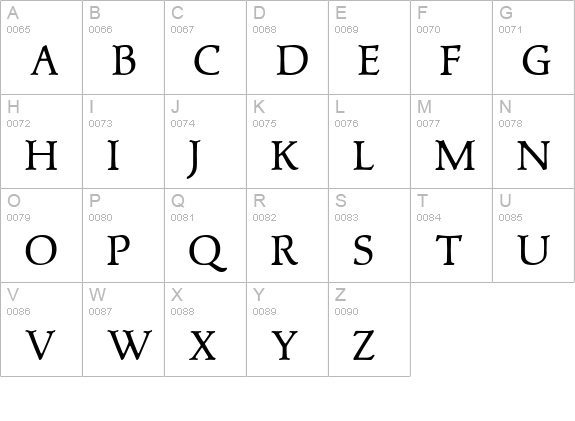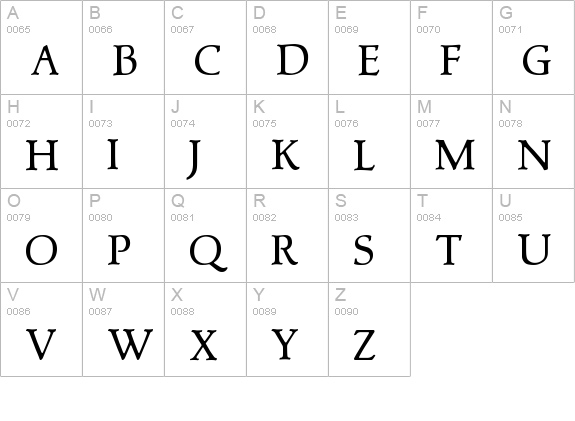
Mercian Font Details
Mercian font is a stunning typeface that effortlessly combines elegance with modernity. With its sleek lines and stylish curves, Mercian is the perfect choice for projects that require a touch of sophistication. Its versatility makes it suitable for a wide range of design applications, from branding to editorial design. The best part? Mercian font is completely free to download at FontsMarket.com! This means you can elevate your designs without breaking the bank. Whether you're a seasoned designer or a beginner looking to add a professional touch to your work, Mercian font is the ideal choice. Download it today and let your creativity shine with this beautiful and free typeface.